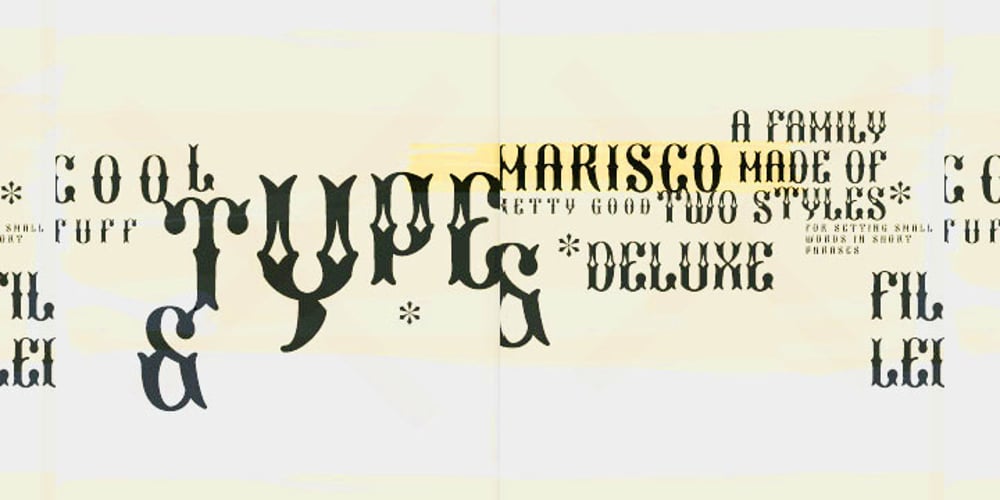
Marisco Font Family was designed by Dado Queiroz and published by estudioCrop. Marisco contains 2 styles and family package options. Marisco is Portuguese for shellfish. The font arose from the forms of classic tattoo types, especially those of mid-twentieth-century sailors, but it also has something of a nineteenth-century poster type flavor to it. Its main application is display type and poster design.